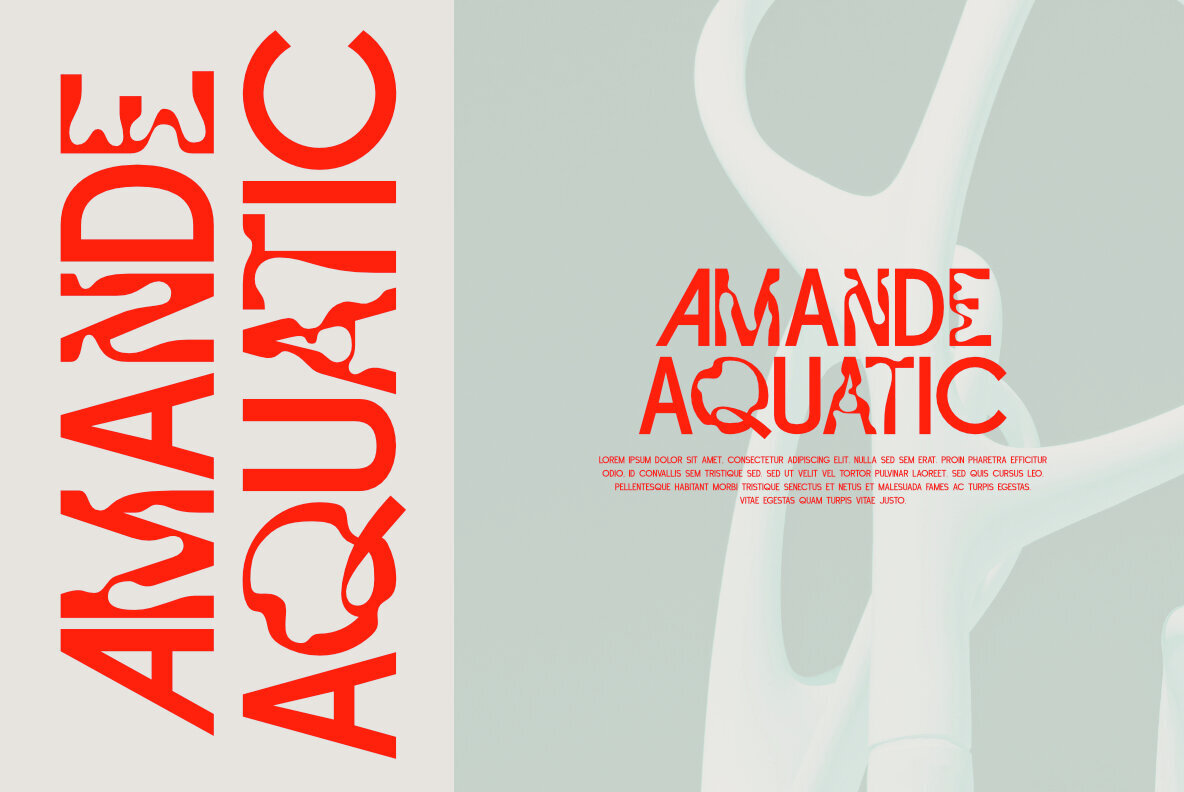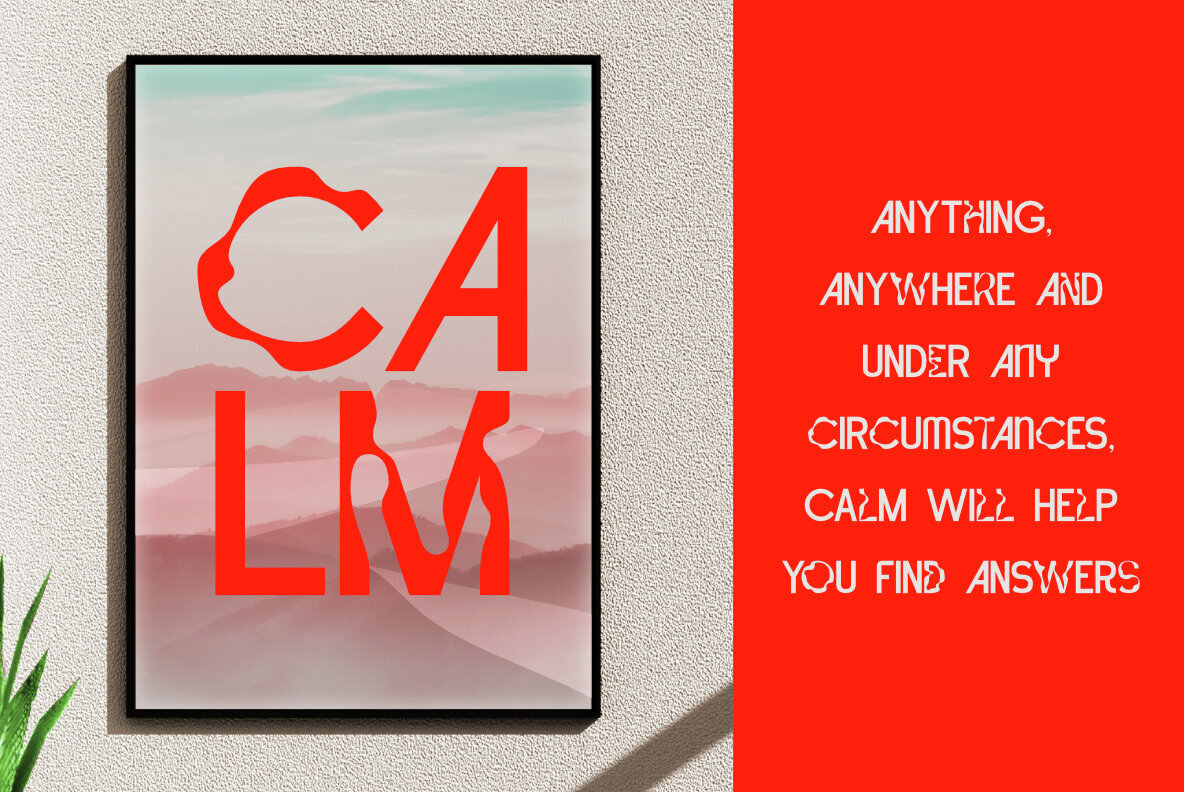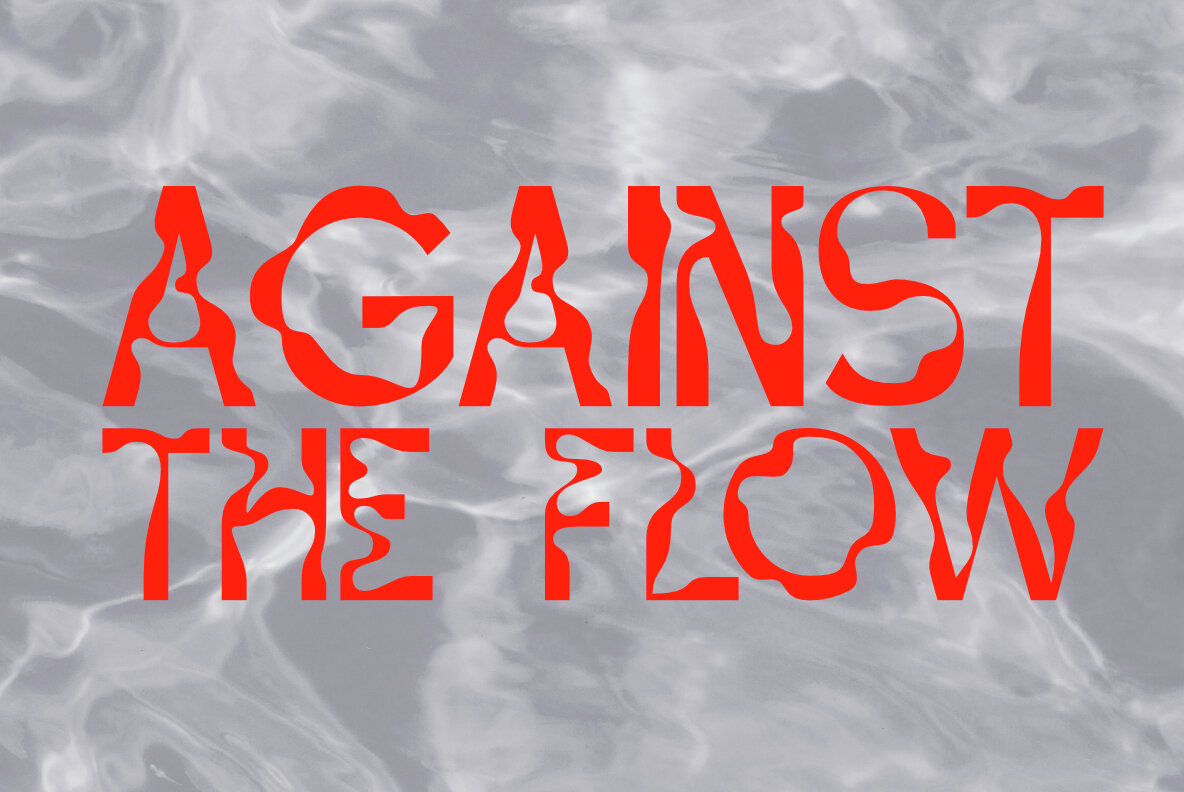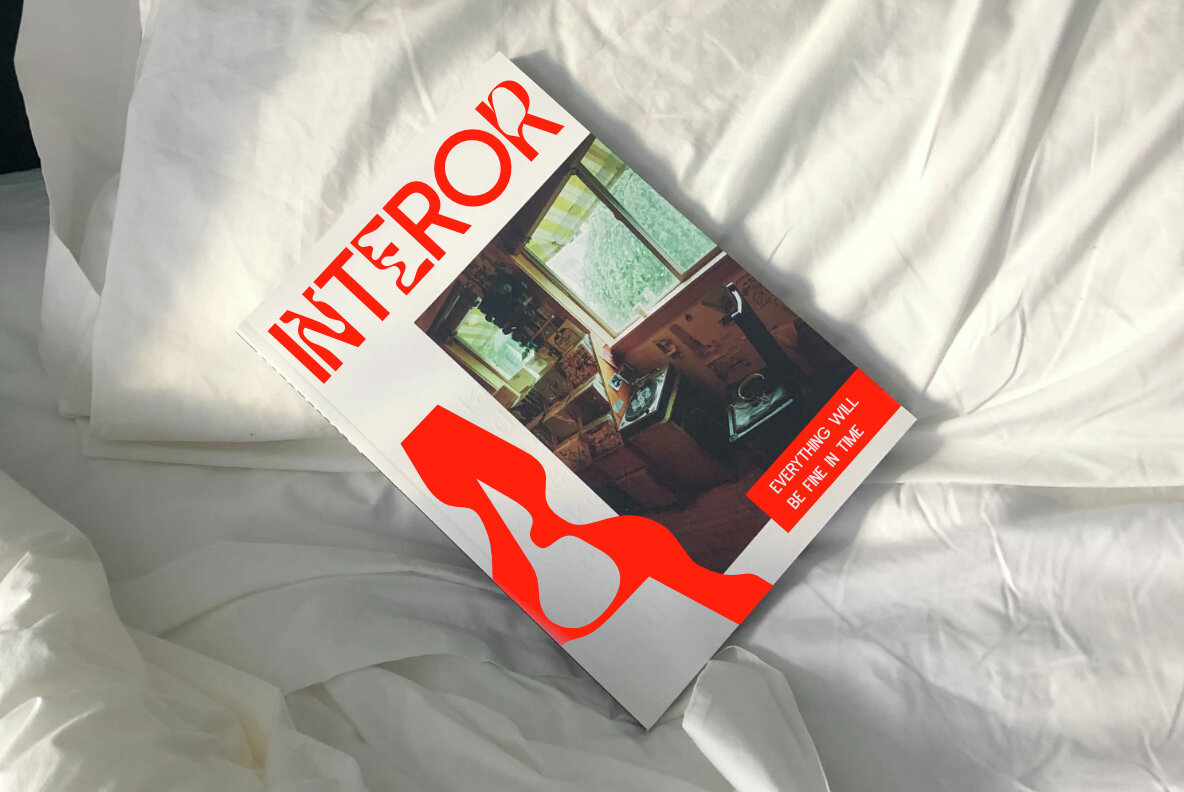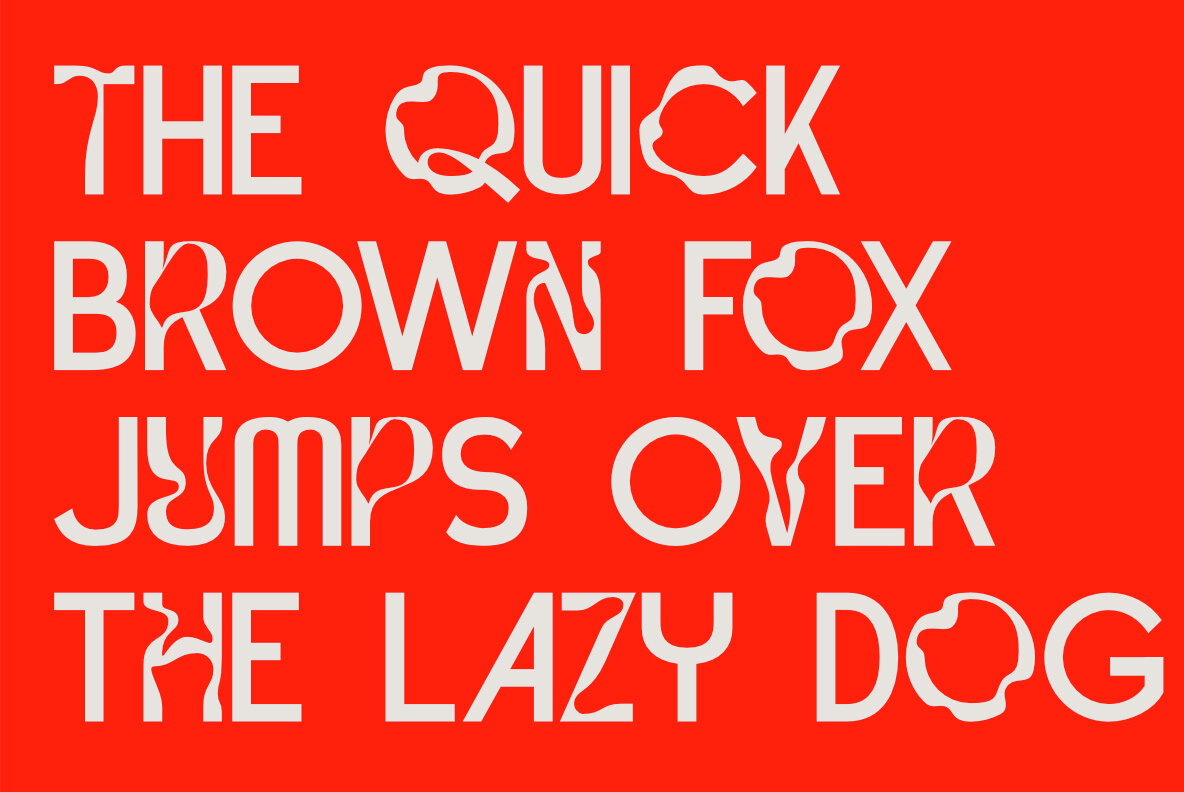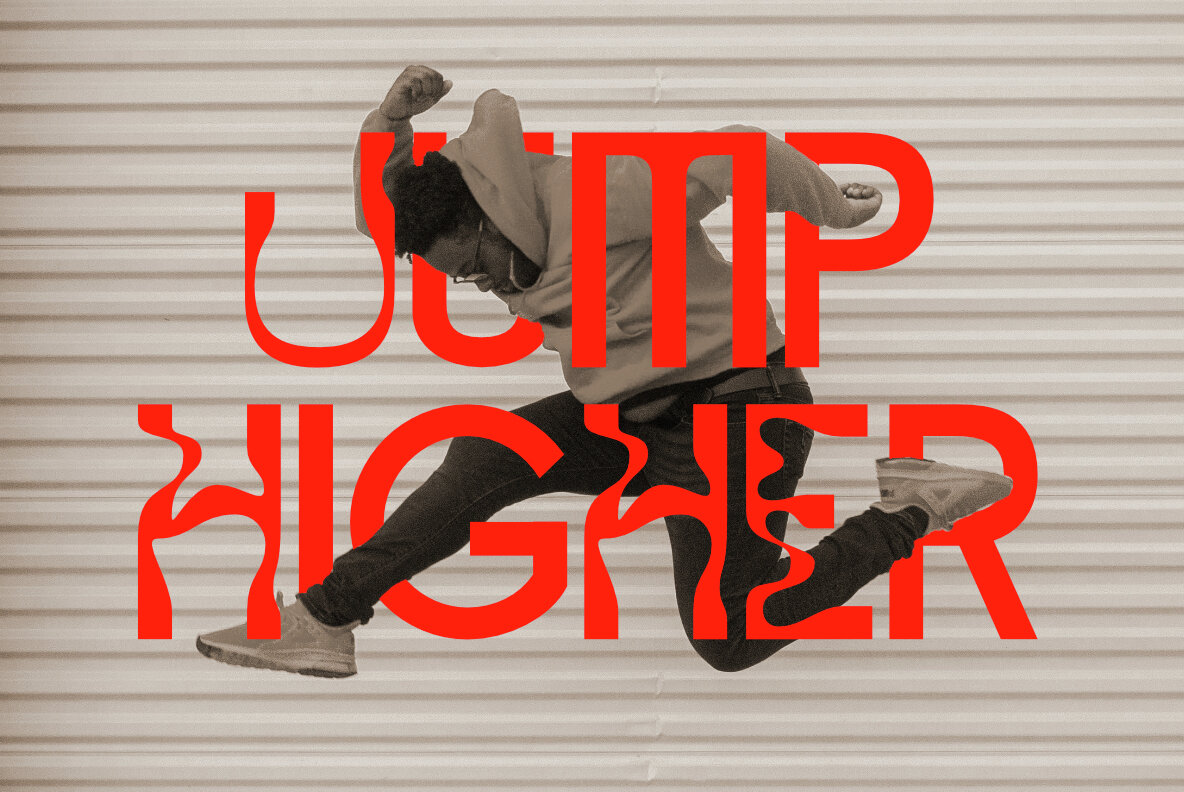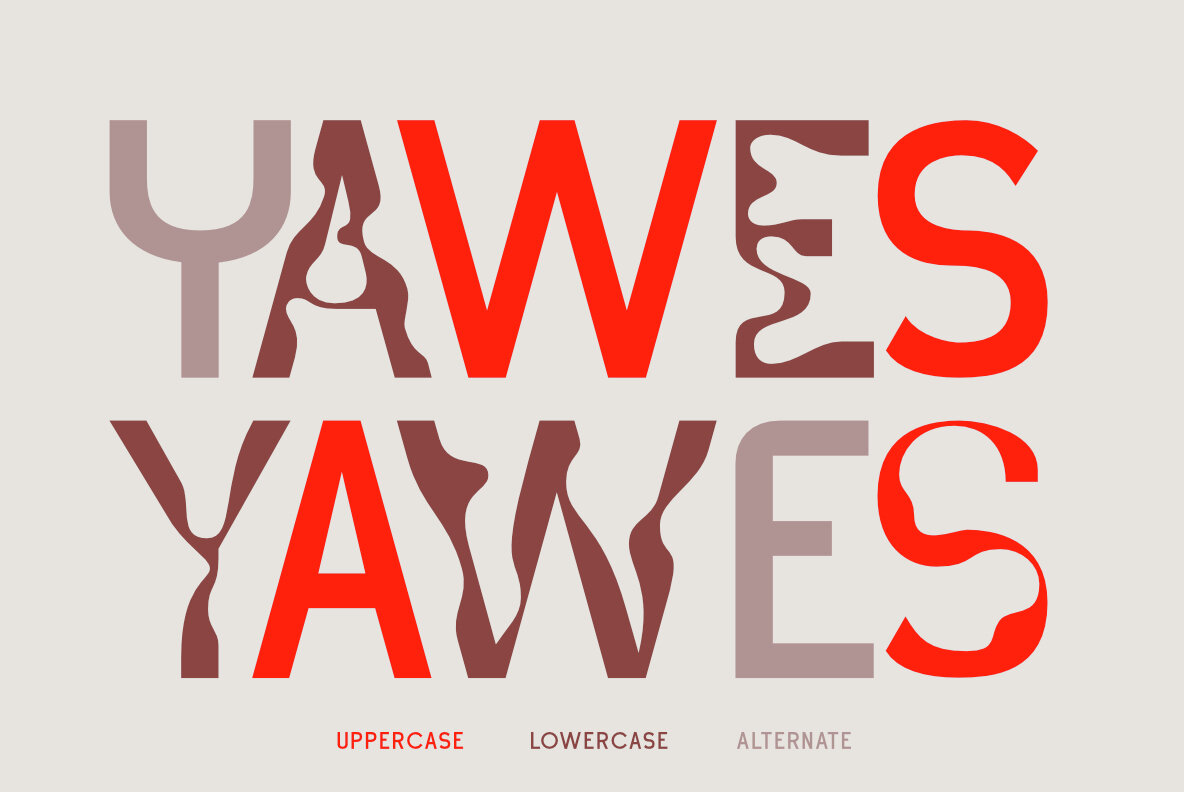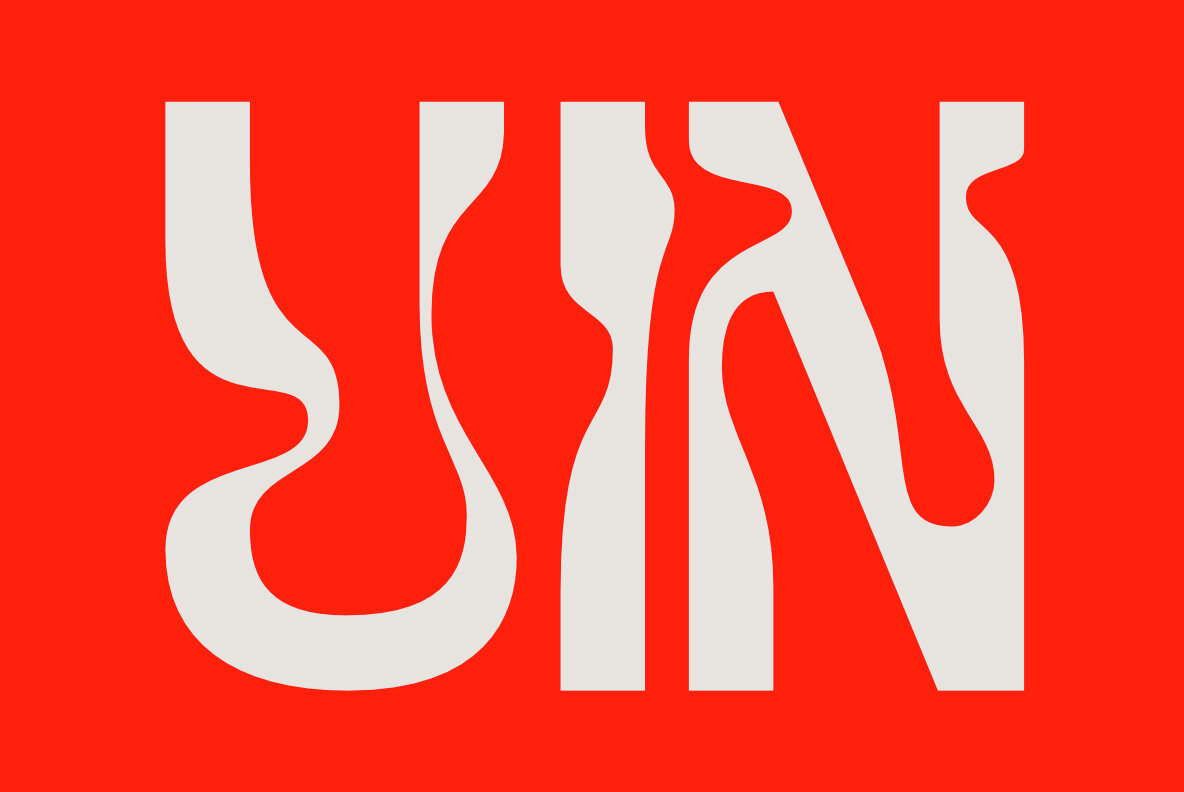
Uniquen Font
Uniquen Regular
Uniquen offers the distinct combination of two fonts into a single cohesive design. This allows for an elegant appearance that maintains excellent readability, making it suitable for various creative applications.Uniquen: Elegant Dual-Style Typeface